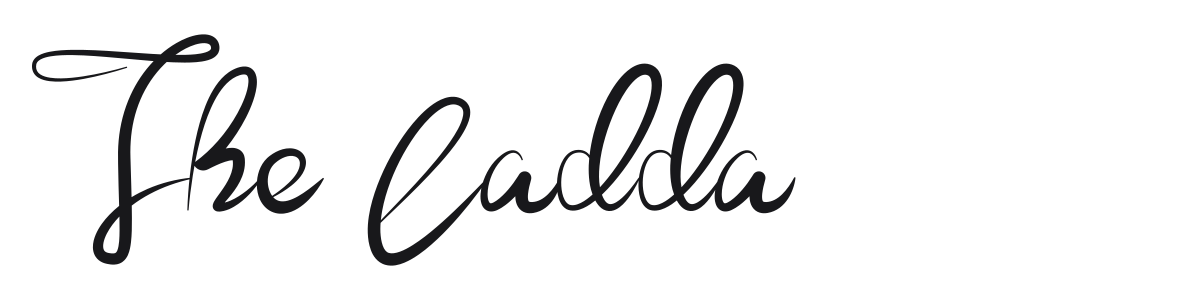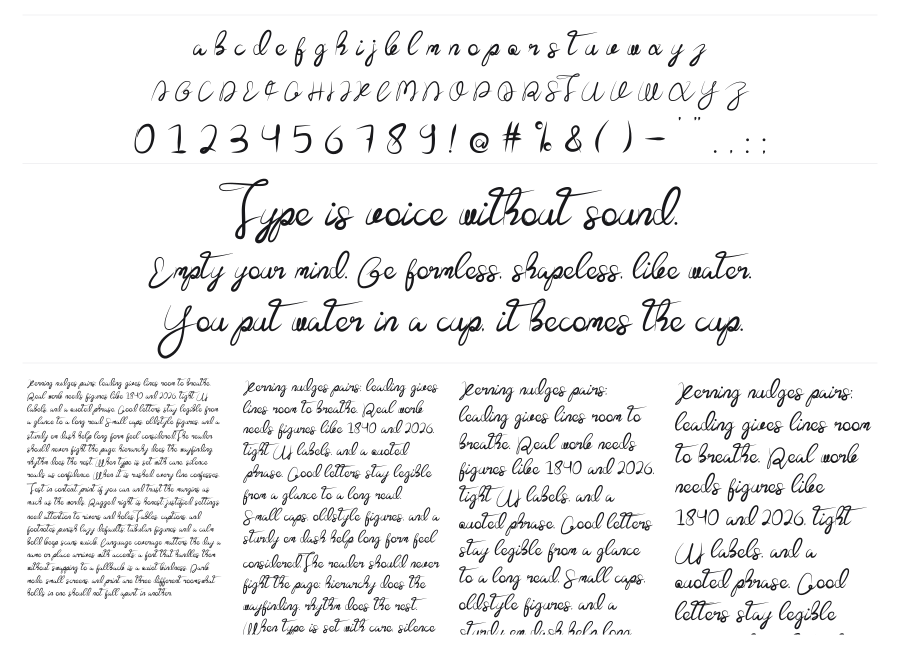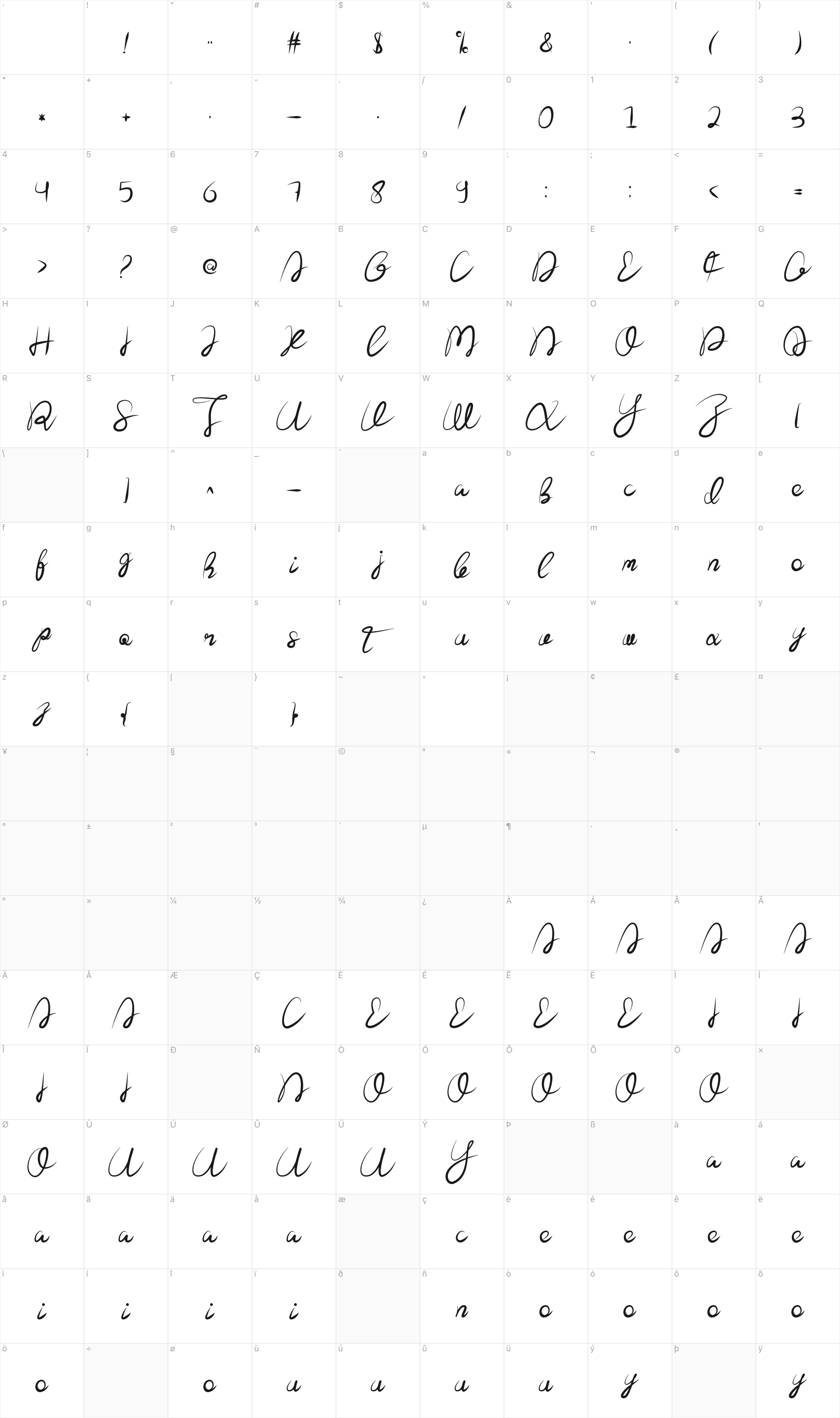
The Ladda
The Ladda is a casual connected script with a natural, hand-drawn energy and bouncy baseline rhythm. Generous loops on the ascenders and descenders and fluid stroke transitions give it the feel of ink on paper rather than a digitized calligraphy exercise. It works best at headline and display sizes where its lively personality can breathe.